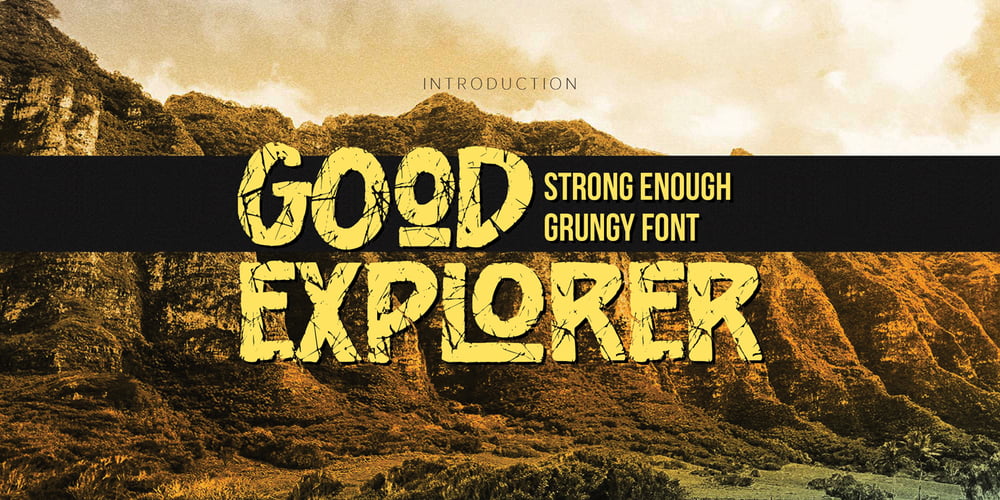
Good Explorer Font Family was designed by Abdul Malik Wisnu, Anang Fibriyanto and published by Gassstype. Good Explorer contains 1 styles and family package options. Here comes our new font Good Explorer This is a handwritten brush that is written casually and quickly. comes in two mode = Standart and italic.this font are made with brushes on Procreate. Then crafted carefully drawn into vector format. That is why Good Explorer has Rough and strong characteristic more natural look to your text with a more modern look to your text.